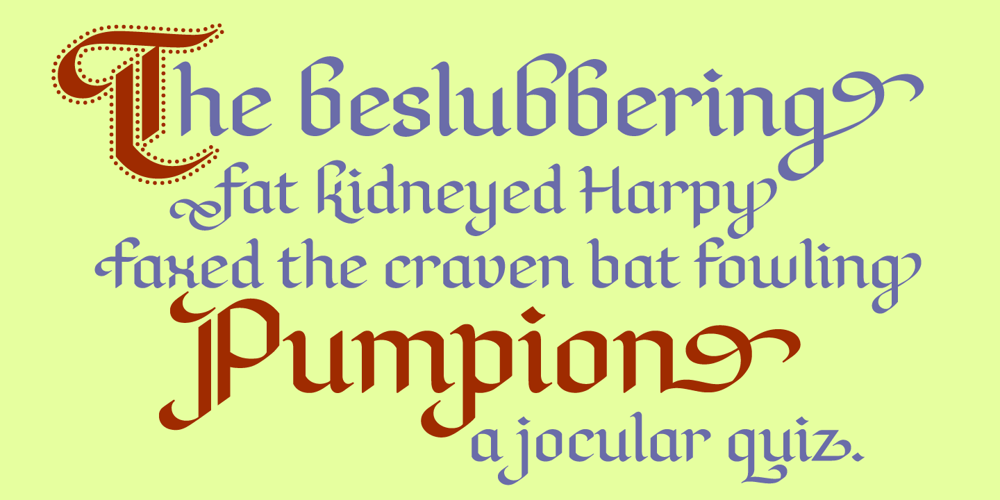
Hadron
Hadron font
Hadron Font Family was designed by Terry Lee and published by Veil of Perception. Hadron contains 1 styles and family package options. Hadron is a fusion of gothic black letter and foundational letter forms. It has a heavy flat pen influence but is combined with more modern letter forms for increased legibility over that offered by black letter fonts. Unlike most black letter fonts, Hadron can be set all caps using the first level of caps. A basic design kernel based on the caps “O” and “H” was created first. These letter forms consist of an interplay between curves and straight lines with abrupt transitions and also possess some of the geometric crispness of a modern sans serif. The rest of the Hadron font was developed around this “O” and “H” kernel. This font could be used for any application requiring a formal black letter or foundational lettering look. Hadron could also be used for invitations, brochures and posters. The first level of caps and lower case is basic enough to set a large body of text. It could also be set all caps at that level.